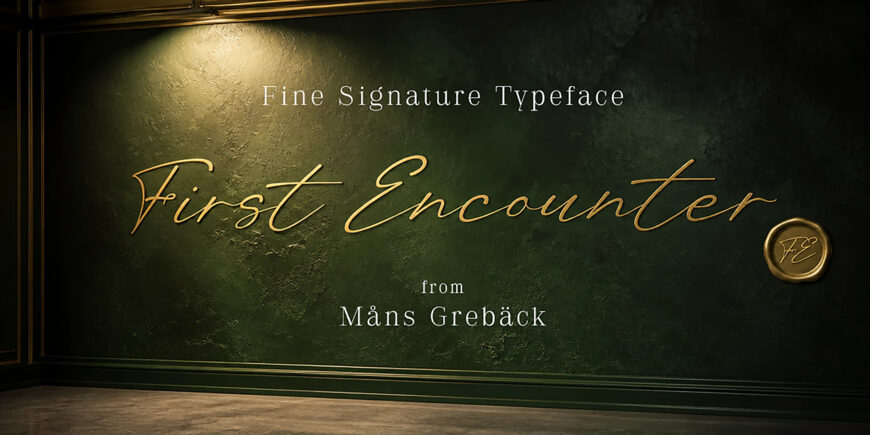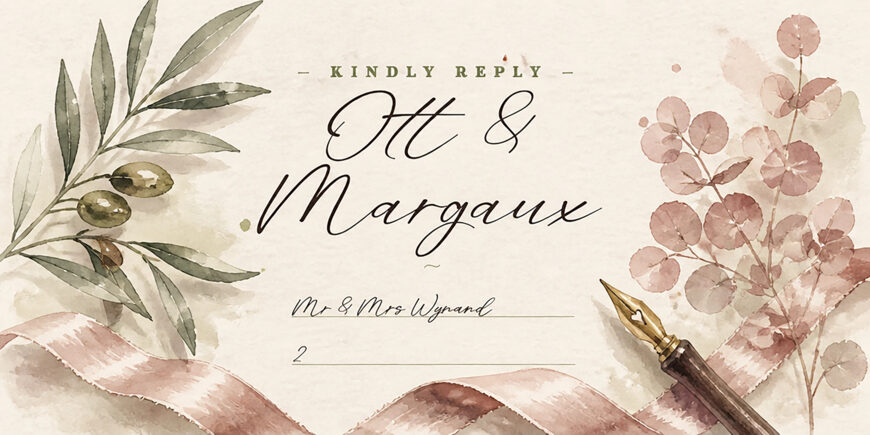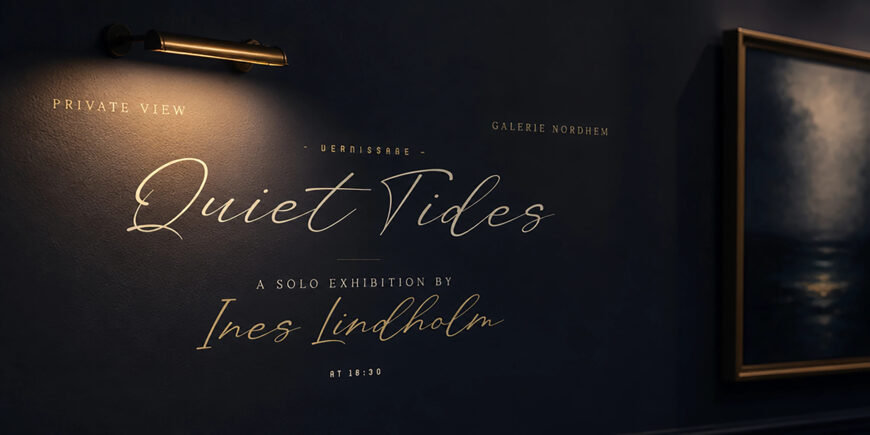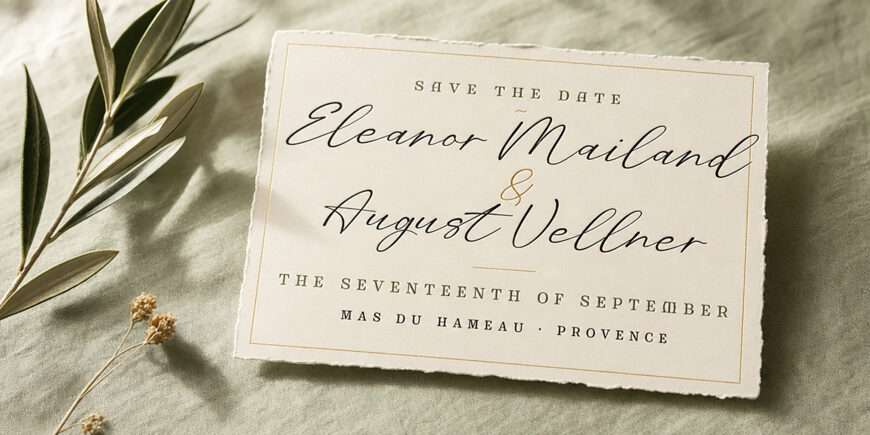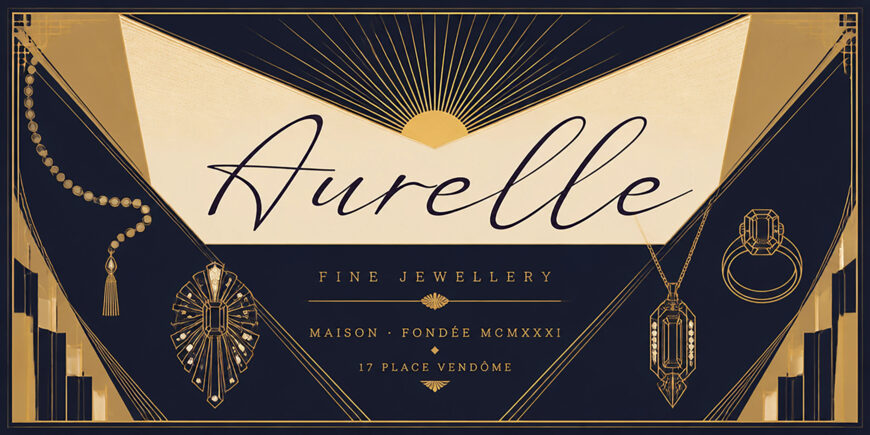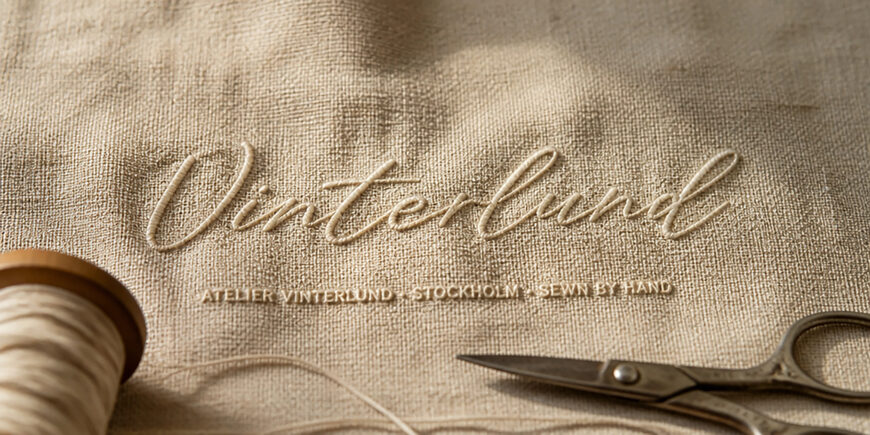
First Encounter Font
First Encounter is a fine signature handwriting script — the kind of cursive you’d recognise as a real person’s hand on a card or a contract. Thin, even pen-pressure throughout, with natural connecting strokes between letters and a small upward bounce in the baseline that keeps a single line from feeling rigid.  Capitals carry confident loops; lowercase descenders extend just enough to give phrases air. The italic carries a slightly stronger forward lean.